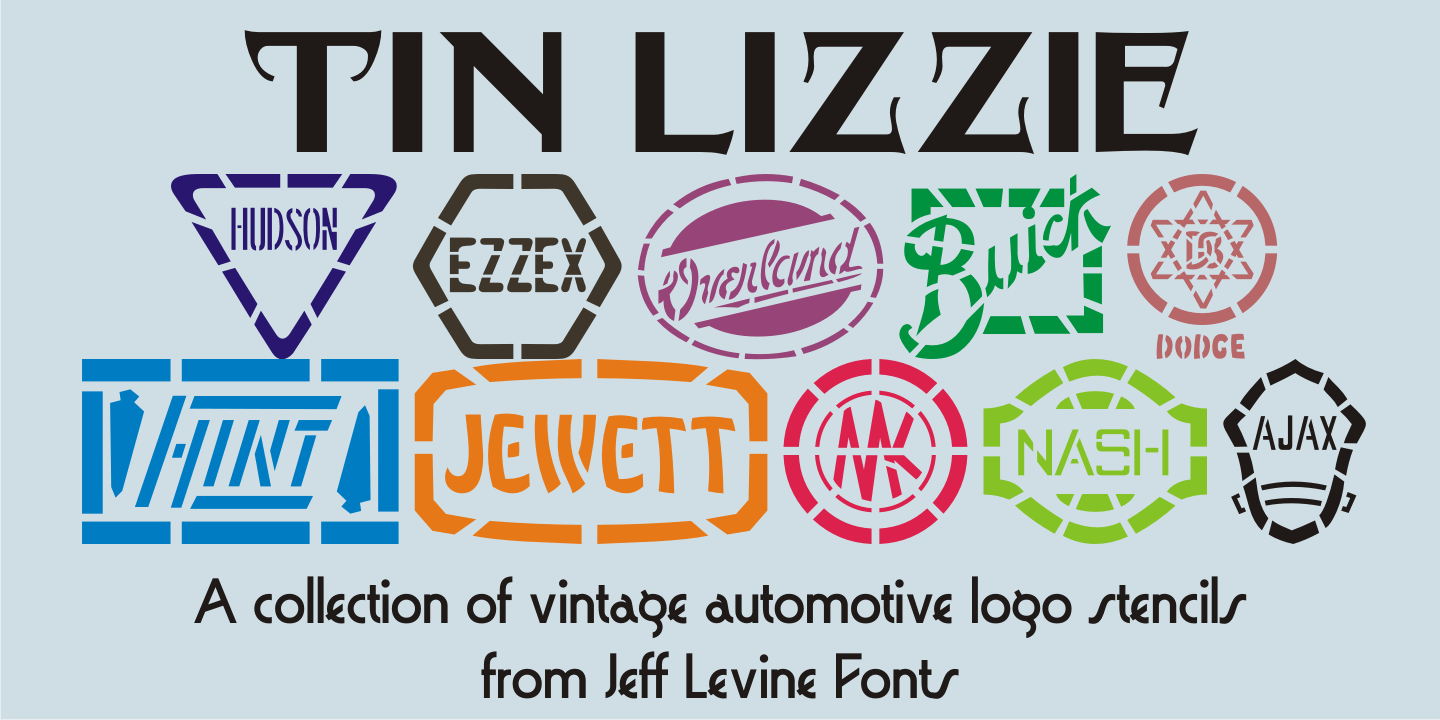
Tin Lizzie
One of the most unusual sets of antique stencils spotted for sale online comprises a set of twenty-four classic logos of early 20th Century automobile companies.
For whatever purpose that is now lost to time, these stencils represented the logos of many of America's finest auto manufacturers; most now just historical memories.
The logos were painstakingly redrawn, maintaining the distinctive look of the hand made cutting, although it was an exacting process – some of the images were taken at an angle, and a bit of artistic license had to be used as a compensatory factor.